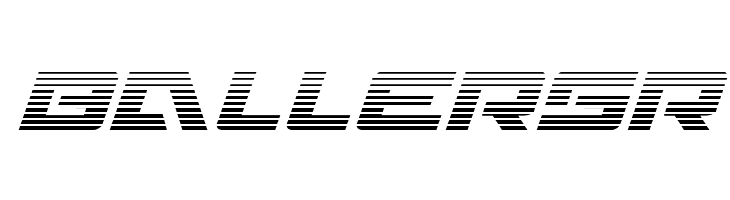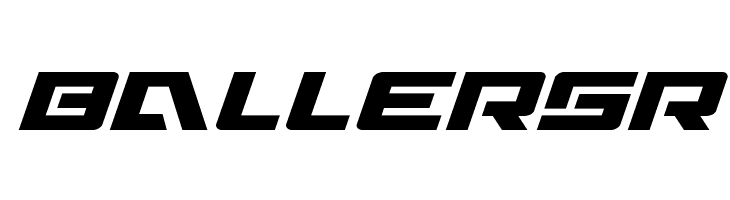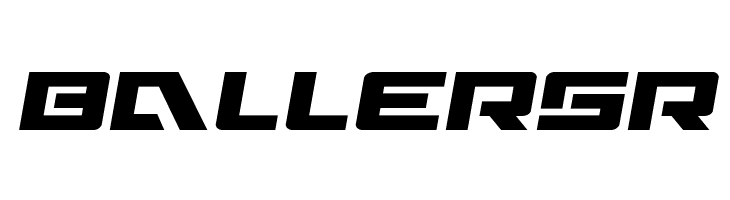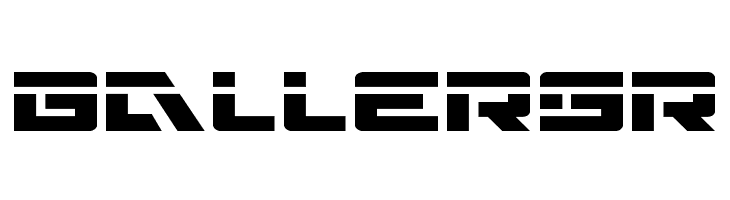
• Wildcard Gradient Italic
A futuristic italic font with gradient lines and a dynamic, speedy appearance.
• Wildcard Halftone
A bold, futuristic font with a dynamic halftone effect.
• Wildcard Halftone
A bold, futuristic font with a halftone effect and geometric shapes.
• Wildcard Halftone Italic
A bold, italicized font with a futuristic halftone effect and angular design.
• Wildcard Halftone Italic
A bold, italicized font with a futuristic halftone effect and geometric structure.
• Wildcard Italic
A bold, italicized font with a futuristic and angular design.
• Wildcard Italic
A bold, italicized font with a futuristic and angular design.
• Wildcard Laser
A bold, futuristic font with geometric shapes and a stencil-like appearance.
• Wildcard Laser
A bold, futuristic font with angular, geometric letterforms.
• Wildcard Laser Italic
A bold, italicized font with a futuristic and angular design.
• Wildcard Laser Italic
A futuristic, angular italic font with bold strokes and geometric shapes.
• Wildcard Leftalic
A bold, angular font with a futuristic and dynamic design.
• Wildcard Leftalic
• Wildcard Outline
A bold, geometric outline font with a futuristic and modern style.
• Wildcard Outline
A bold, geometric outline font with a futuristic and digital style.
• Wildcard Outline Italic
A modern, italicized outline font with a futuristic and dynamic style.
• Wildcard Outline Italic
A modern, geometric outline font with an italic slant and sharp, angular lines.
• Wildcard Semi-Italic
A bold, angular, and slightly italicized font with a futuristic and dynamic style.
• Wildcard Semi-Italic
A bold, angular, and slightly italicized font with a futuristic design.
• Wildcard Super-Italic
A bold, italicized font with sharp angles and a futuristic design.
• WildCrazy
A whimsical, hand-drawn font with intricate patterns and playful designs.